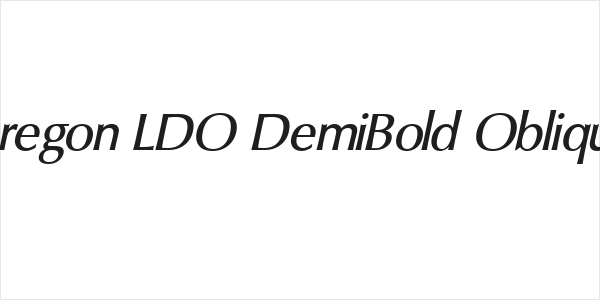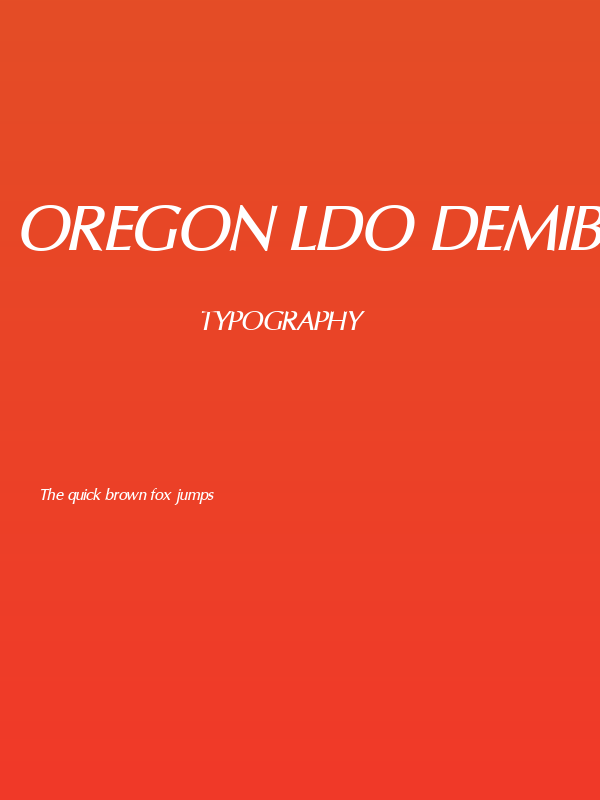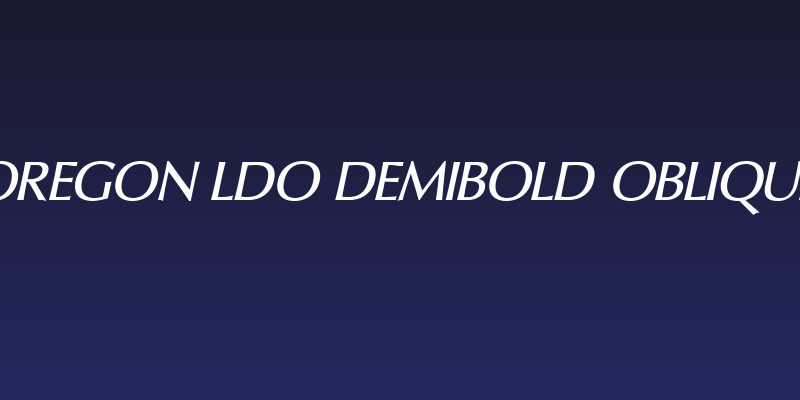
Oregon LDO DemiBold Oblique Font
Oregon LDO DemiBold Oblique Description
This font features a dynamic and elegant style with a slight oblique slant, giving it a sense of motion and sophistication. The characters are well-defined with smooth curves and sharp edges, creating a harmonious balance between the boldness and the italicized angle. The uppercase letters are tall and commanding, while the lowercase letters maintain a consistent flow, enhancing readability. The numerals are clear and distinct, making them suitable for various applications. The special characters are crafted with precision, adding to the font's versatility. Overall, this font exudes a modern yet timeless appeal, making it suitable for a wide range of design projects.